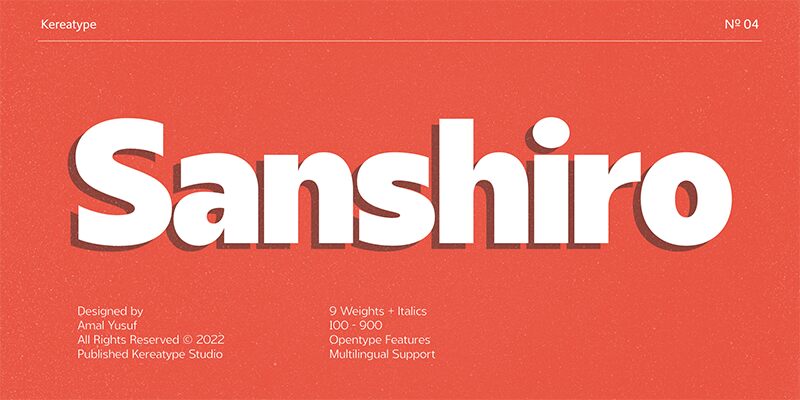
Sanshiro Black
Meet Sanshiro Black, the bold and beautiful typeface designed by Kereatype Studio. With its extra-bold weight and semi-expanded width, this sans serif font is perfect for projects that require a strong, eye-catching presence. Whether you're designing a logo, creating a poster or crafting a website, Sanshiro Black will make sure your message stands out from the crowd. Its clean lines and modern aesthetic make it suitable for both digital and print media. So go ahead, take your designs to the next level with Sanshiro Black!